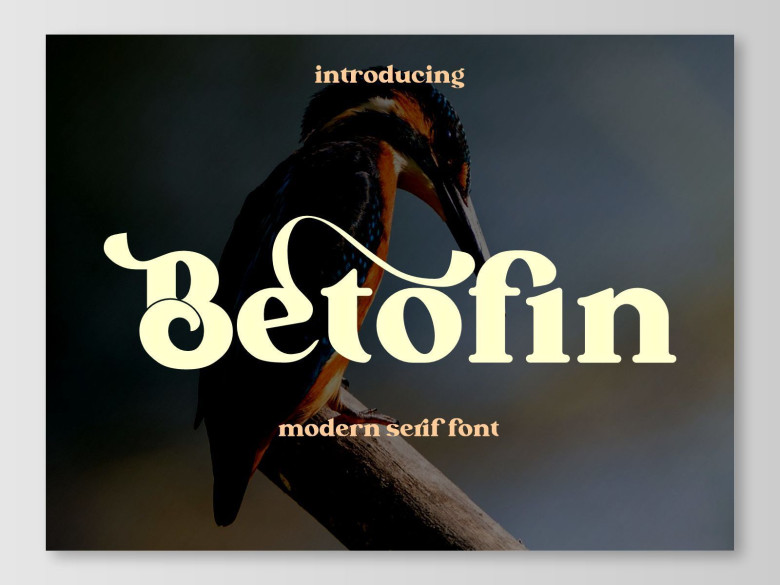
Betofin Modern Serif Font
Betofin Serif Font is a classic “Didona” characterized by extreme contrast in thick strokes and thin strokes, by the use of very short serifs and by the vertical stress of the letters. This version is a little condensed and enriched by a full set of Open Type features like tails, ligatures, alternates and swashes.